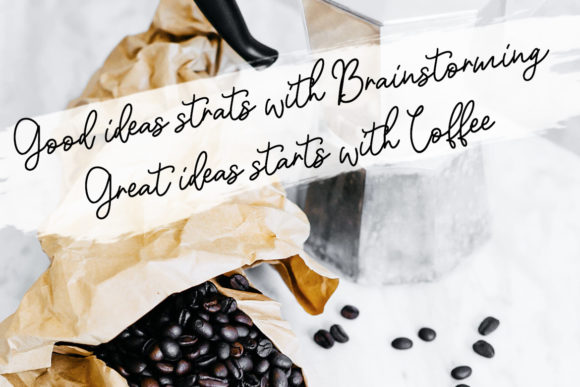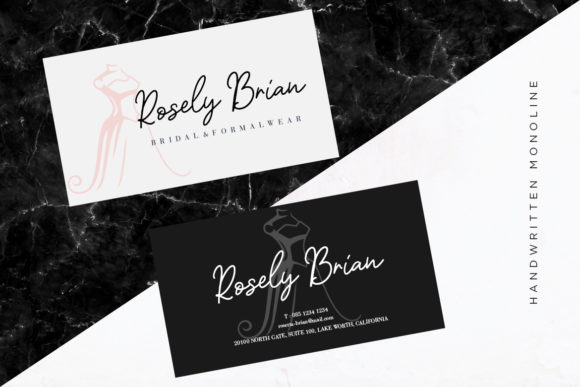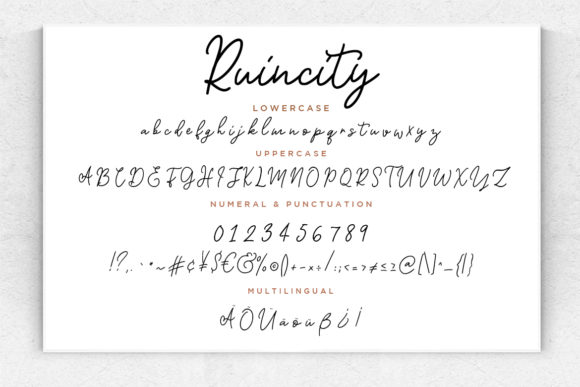
Introduction to Ruincity Font Font
Fonts play a crucial role in design, and the Ruincity Font font is a typeface that brings both character and versatility to any project. Whether you’re working on a branding project, a website, or a print design, the Ruincity Font font offers a unique style that can elevate your work.
Ruincity is an amazing and dazzling script with a cool vibe.
Get inspired by its casual feel .
Key Features of Ruincity Font Font
Why Choose Ruincity Font Font?
The Ruincity Font font is more than just a typeface – it’s a design tool that helps you communicate your message with style and clarity. Its unique character set and versatile design make it suitable for a wide range of applications, from elegant invitations to bold headlines.
With its carefully crafted letterforms and balanced proportions, the Ruincity Font font ensures readability and visual appeal across all mediums.
What makes Ruincity Font font special?
The Ruincity Font font stands out with its unique design, exceptional readability, and versatility across various design applications.